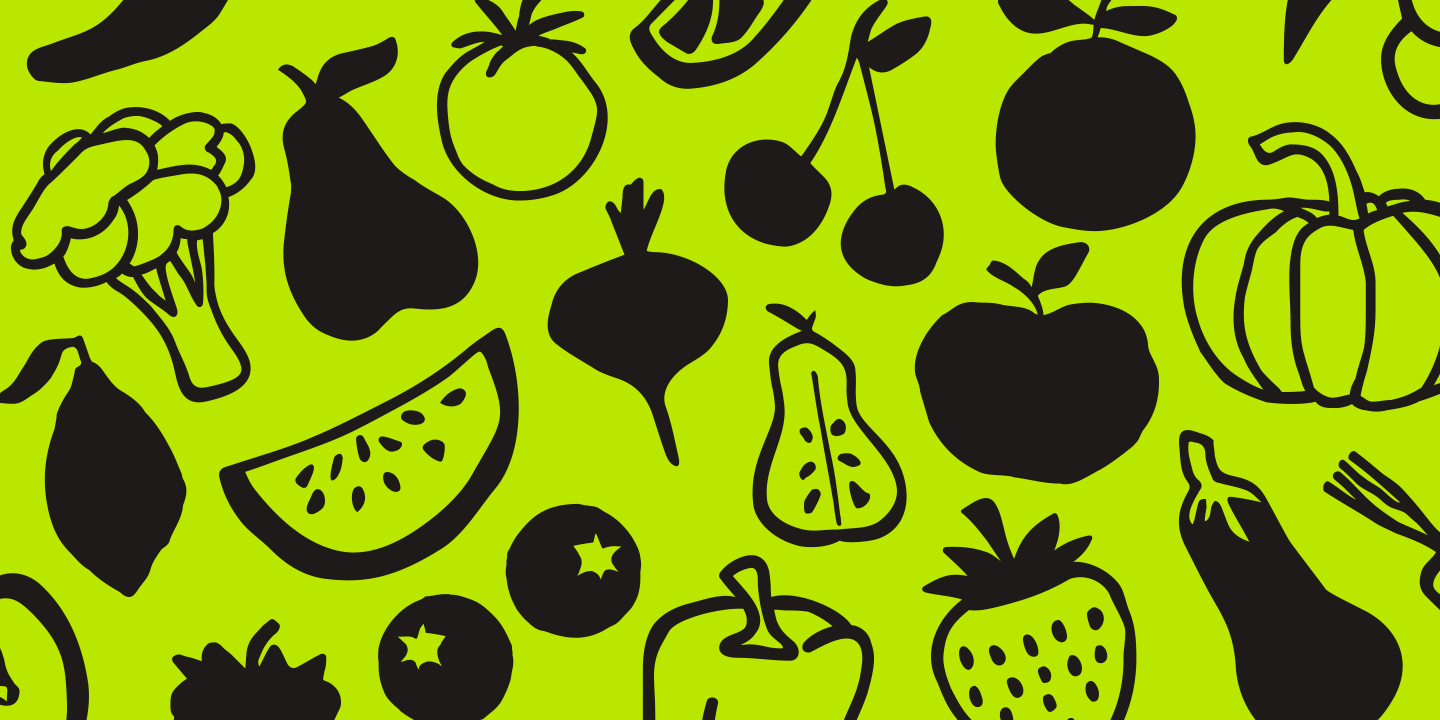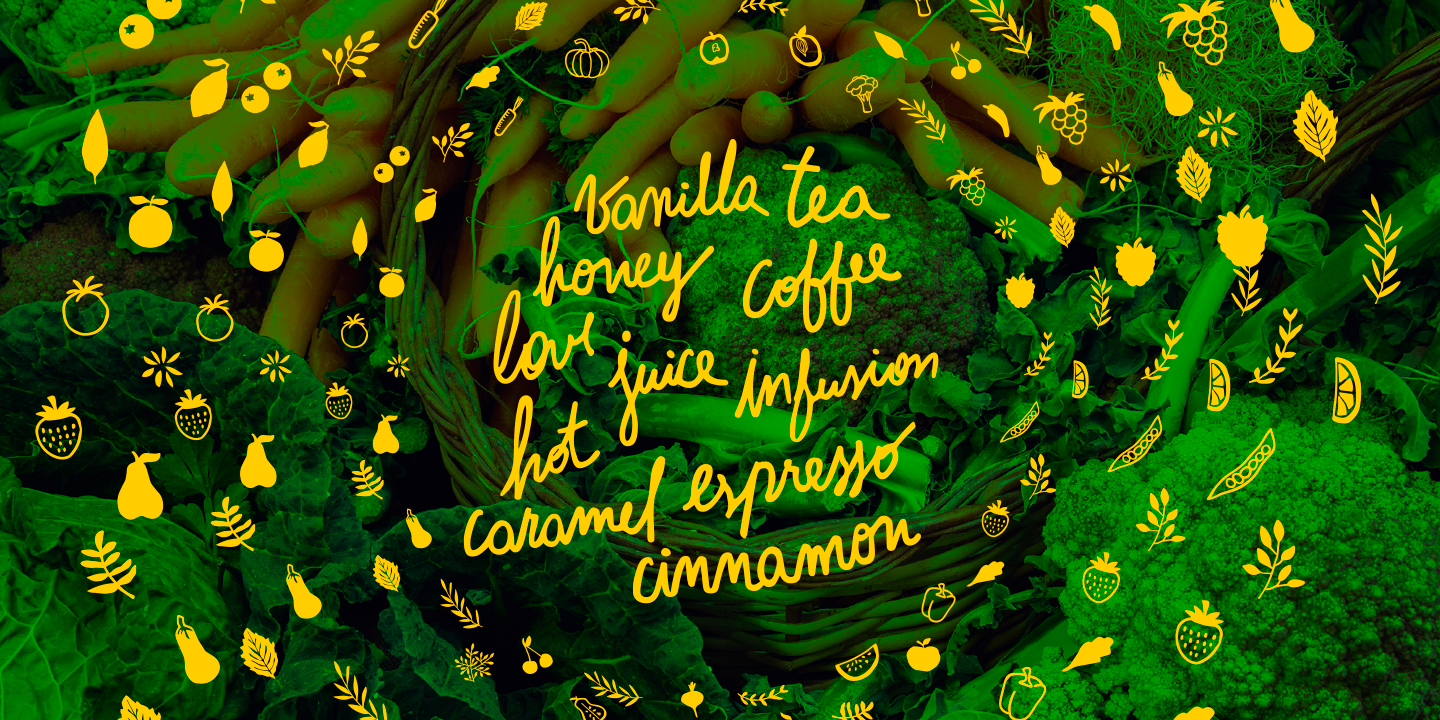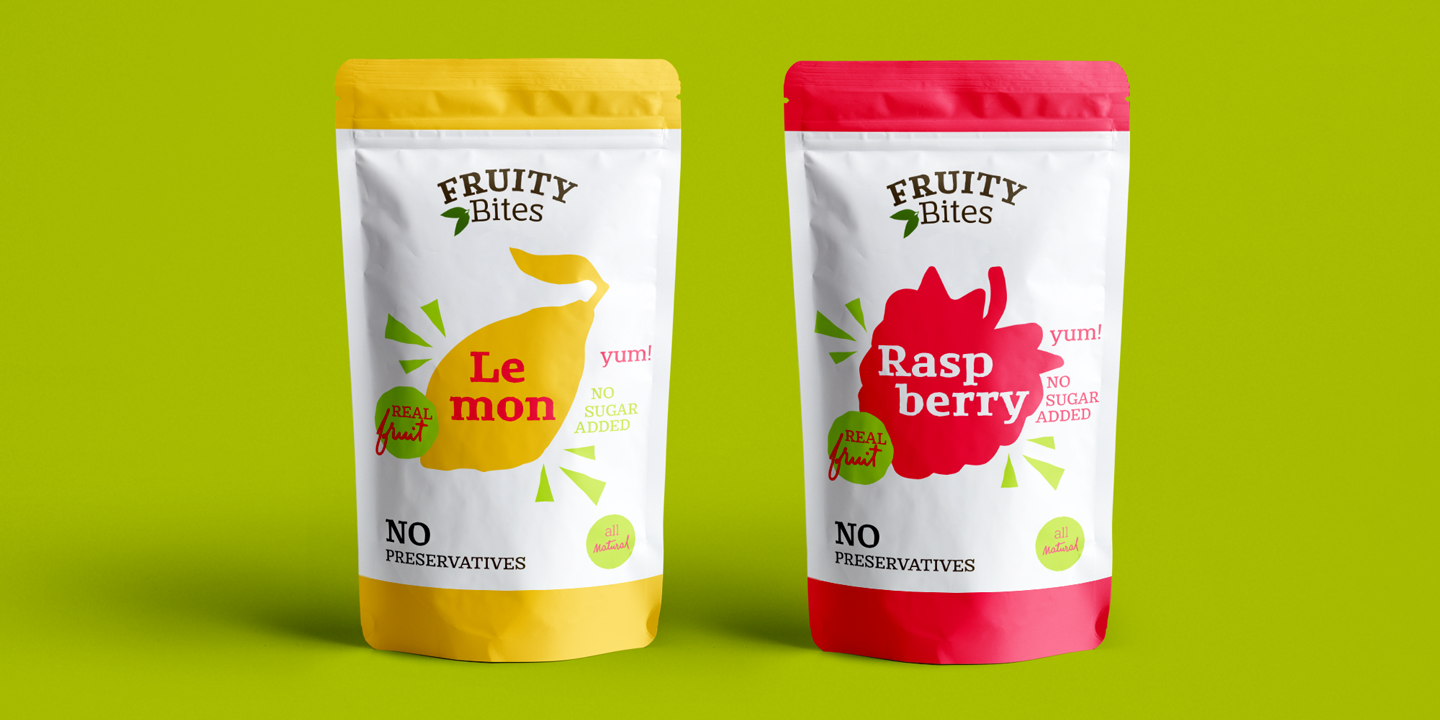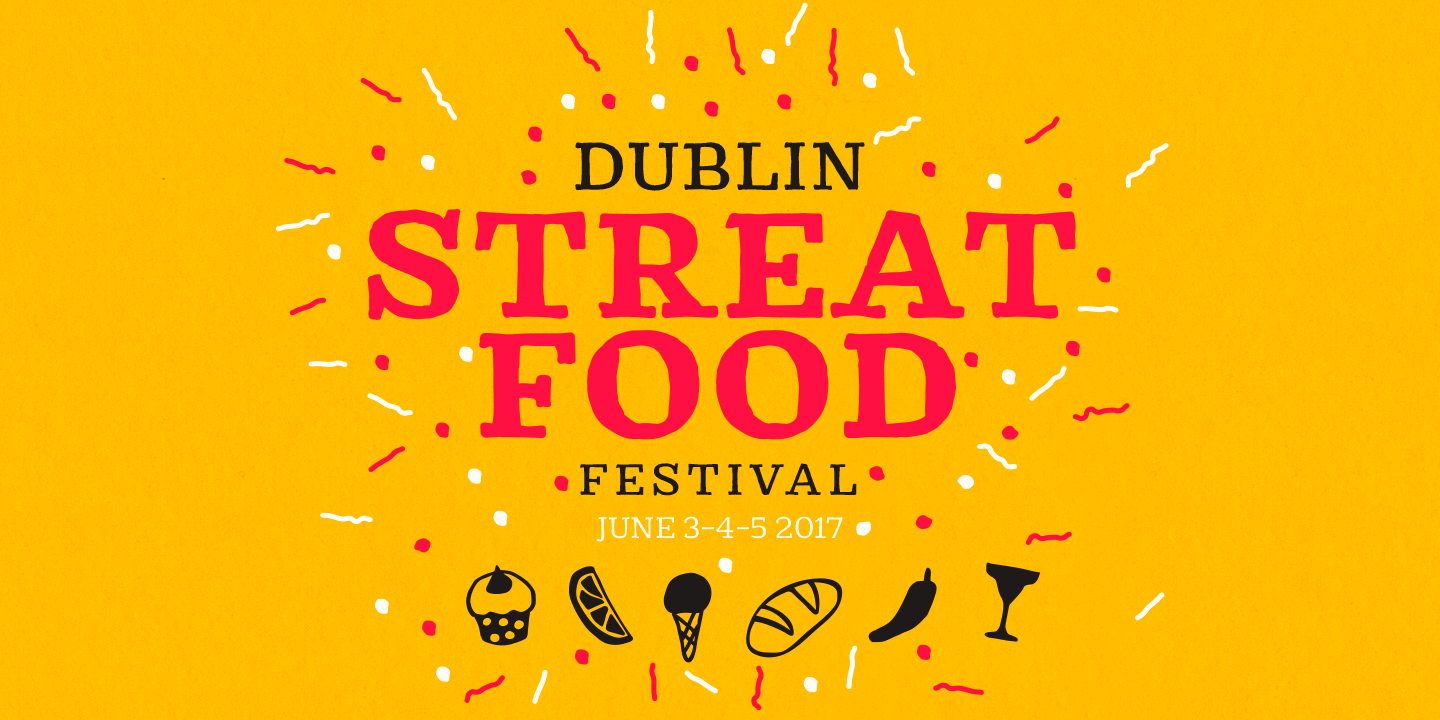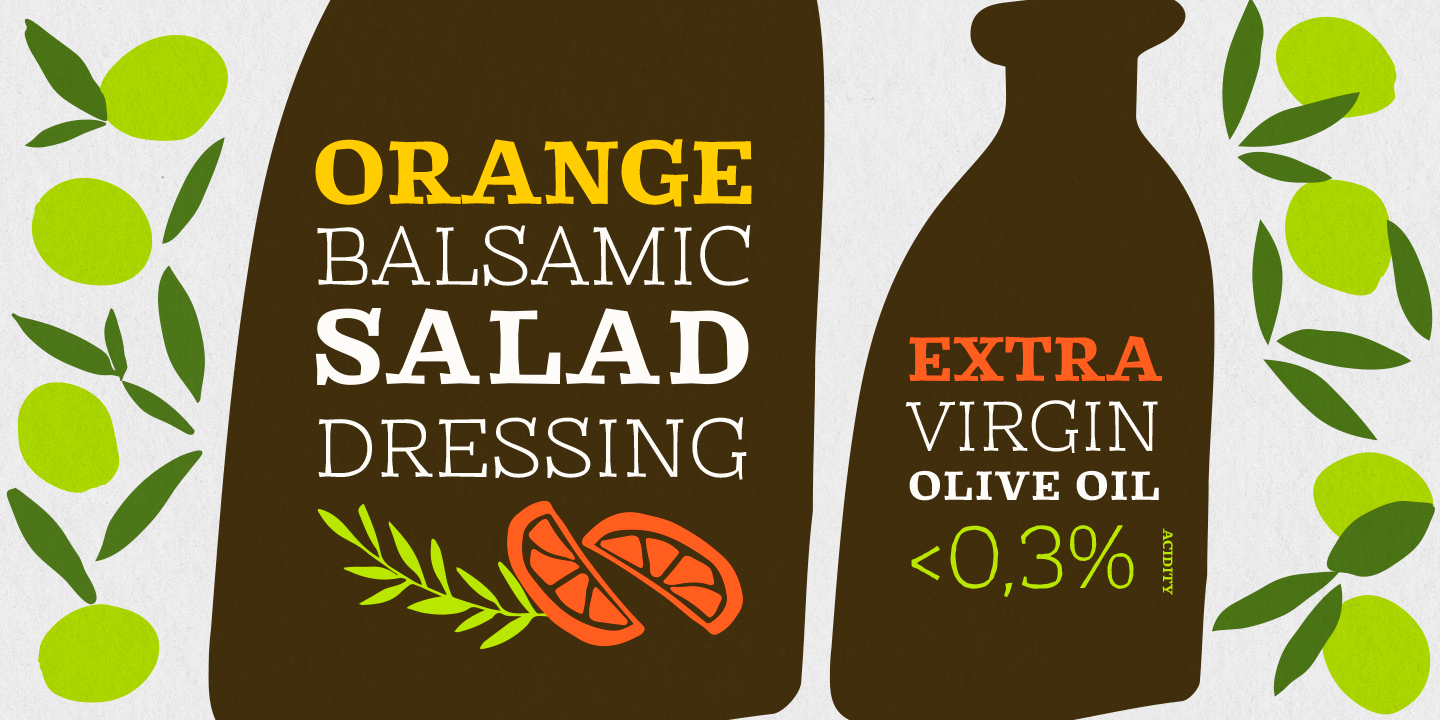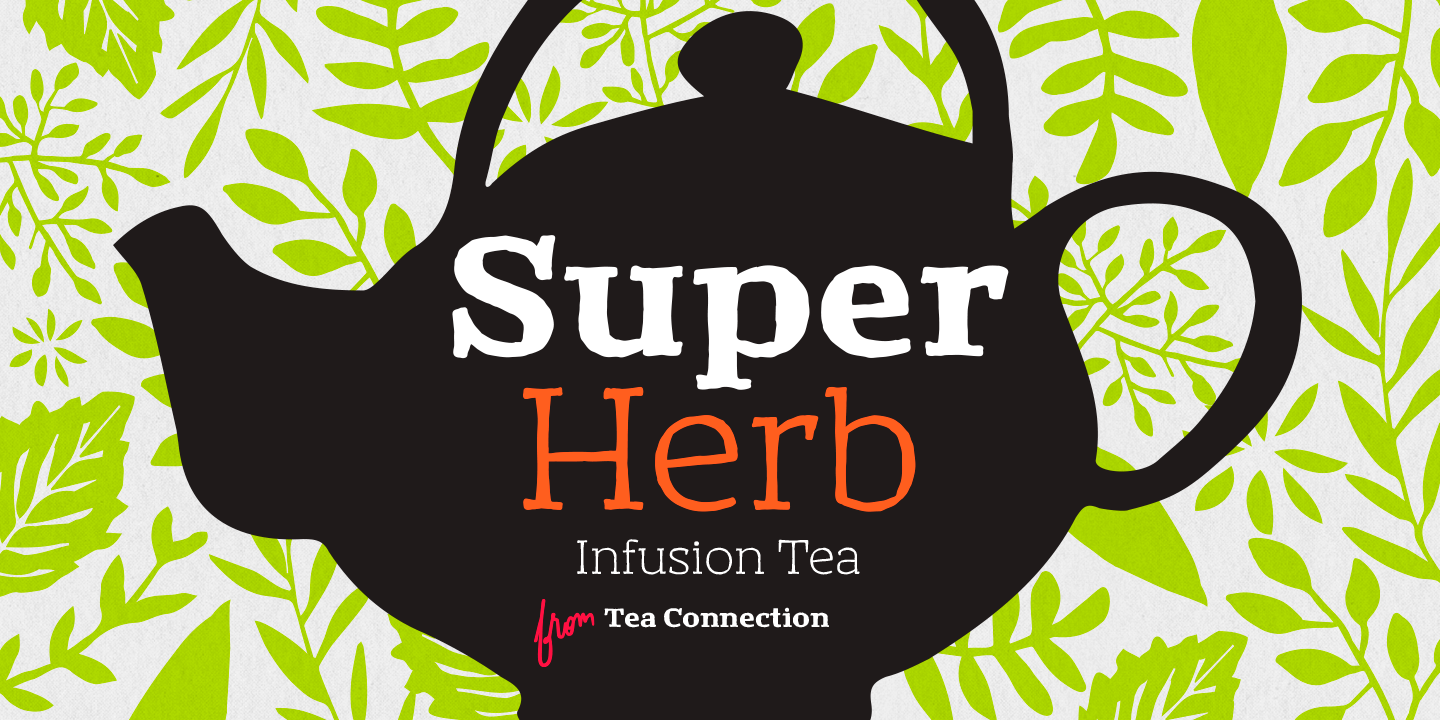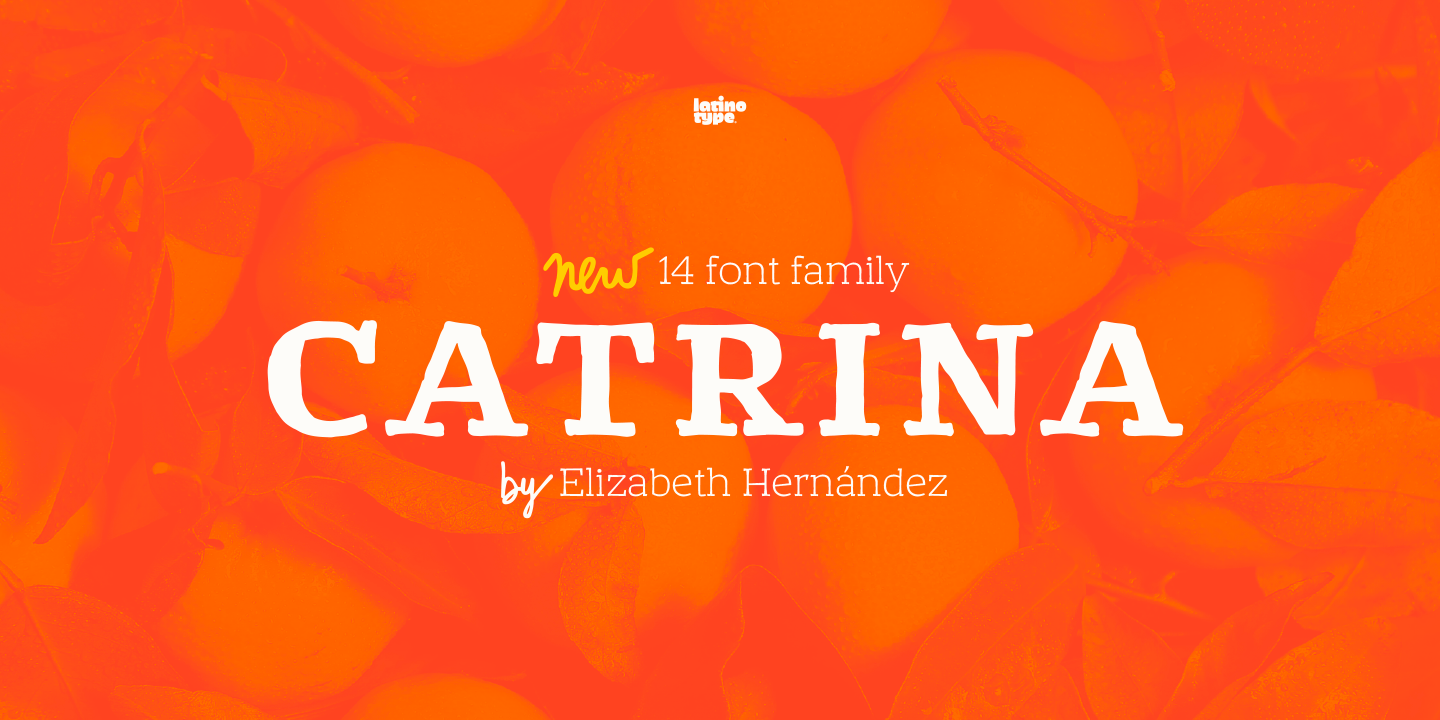
Catrina Family (14 fonts)
Catrina comes in 6 weights, ranging from Thin to Black, plus a Handmade version and includes Dingbats and Catchwords which make it the perfect choice for packaging, branding, titles, and advertising.